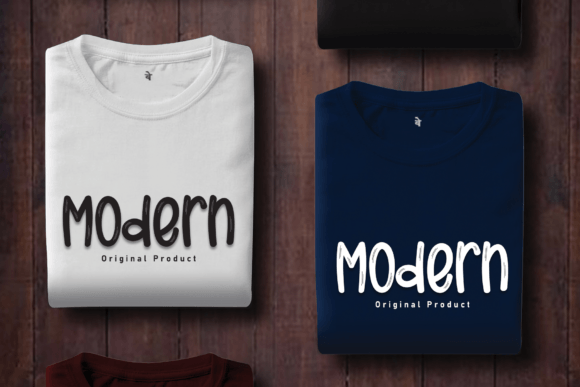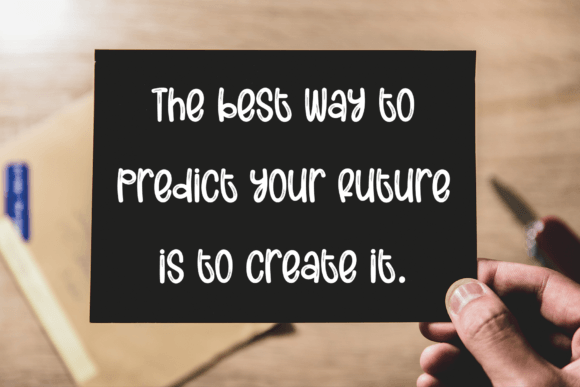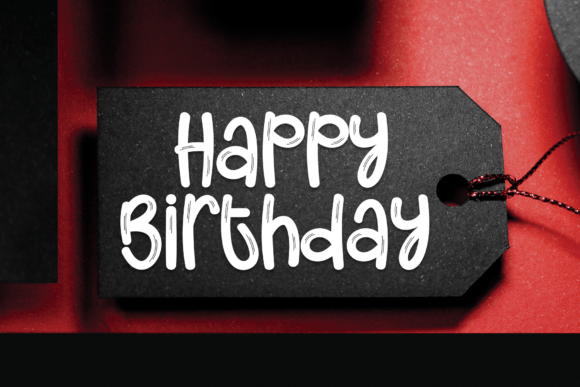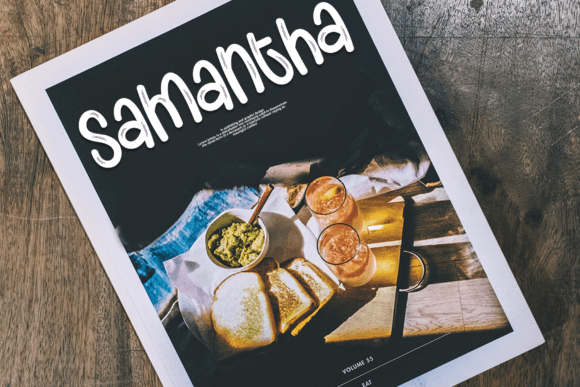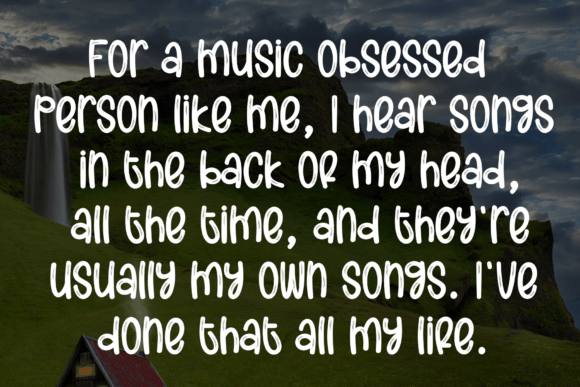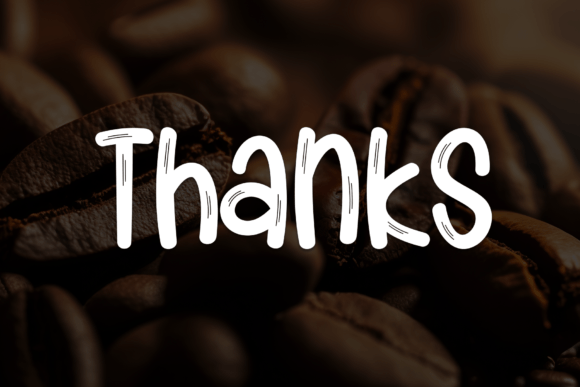
Introduction to Caffeine Font
Caffeine is a sweet and friendly handwritten font.
Caffeine Font offers exceptional quality and versatility, making it a valuable addition to your design toolkit. Whether you’re creating for personal projects or commercial use, Caffeine Font delivers professional results.